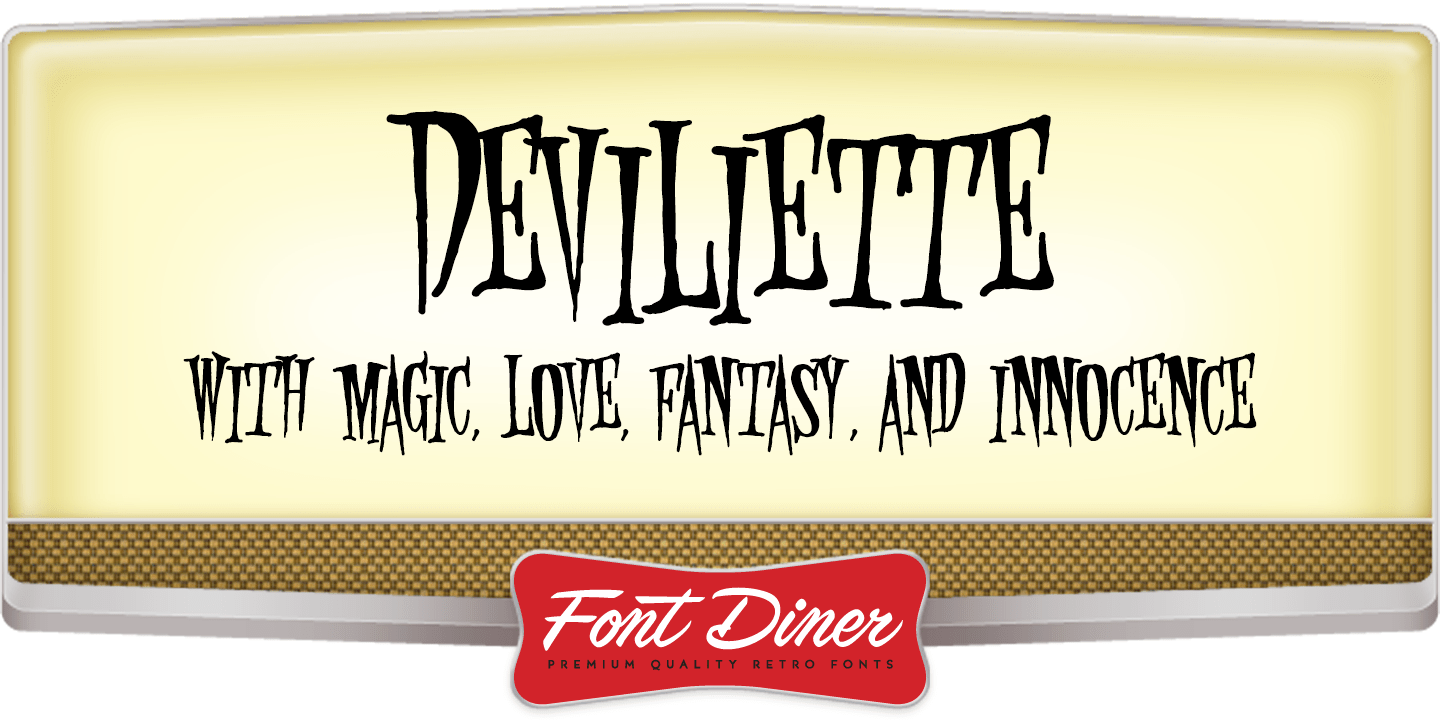
HomeFont BrosSpecial EffectDeviliette Special Effect Deviliette FacebookXPinterestWhatsApp 1 of 1 About Deviliette Looking for something a little bad-ass to spice up your designs? Grab Devilette, she\’s one hot number!  DOWNLOAD ON FONT BROSThis font is sold and delivered by Font Bros. Font Canyon may earn a commission if you buy through this link. People also explored President Font The Knight Font Playzone Font Helfa Groovy Grunge Snowy Font Amarissa Font Christmas Font Vistory Font Valentinoa Font 348 0 TagsDeviliette Font Previous articleFunghi ManiaNext articlePlau Uprights LEAVE A REPLY Cancel reply Comment: Please enter your comment! Name:* Please enter your name here Email:* You have entered an incorrect email address! Please enter your email address here Website: Save my name, email, and website in this browser for the next time I comment. Personal Use Free Heartburn Personal Use Free Read more about this font Vanity Personal Use Free Read more about this font Predators Personal Use Free Read more about this font Hello, How Are You? Personal Use Free Read more about this font BLOG The 10 Best Handwriting Fonts to Add Personality to Your Designs 10 of the Best Handwriting Fonts for Adding Personality to Your Designs There will undoubtedly be no other better choice than handwriting fonts to give... Best Fonts for YouTube Videos: Make Your Thumbnails Stand Out Free Fonts Risk: Why Free Fonts Can Be Dangerous for Designers 5 Fonts That Will Dominate Design Trends in 2026